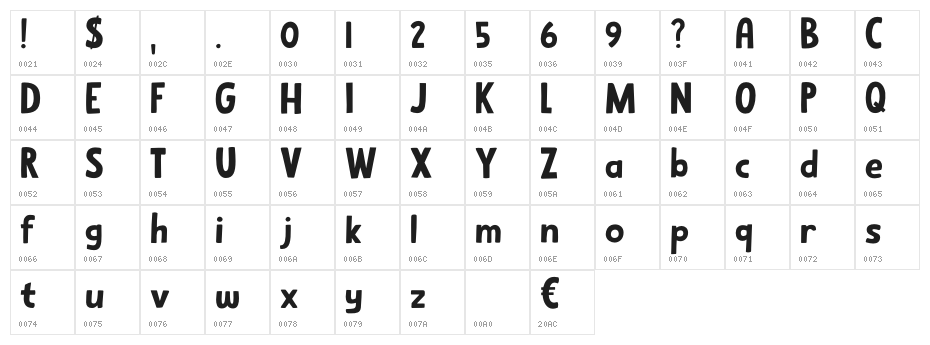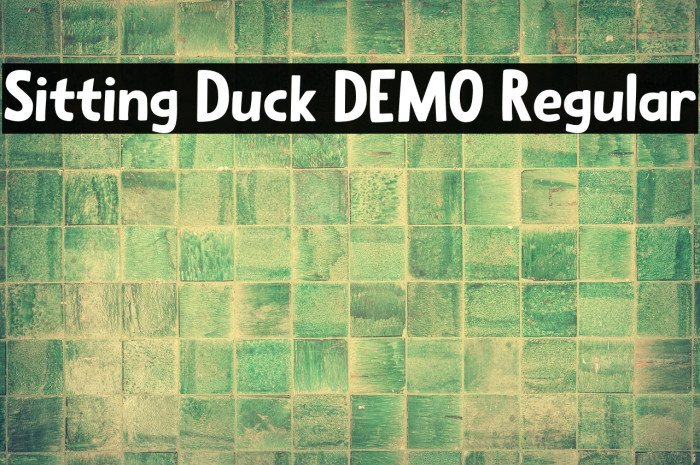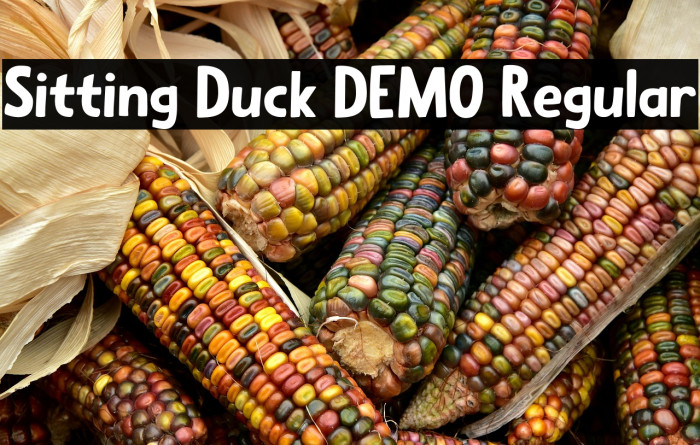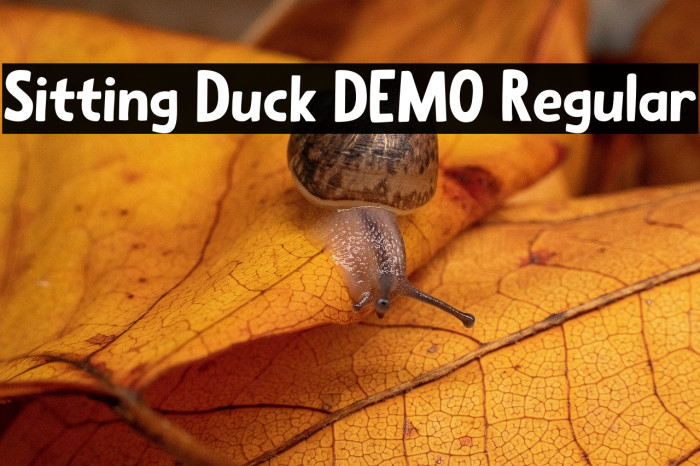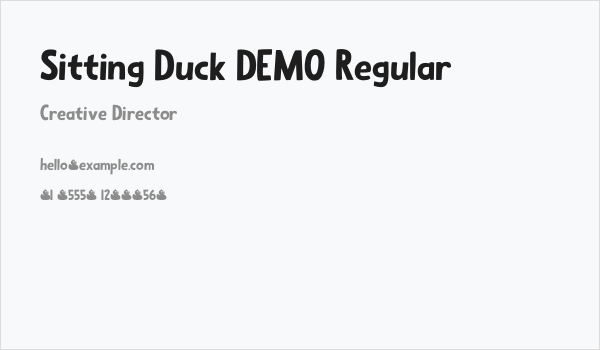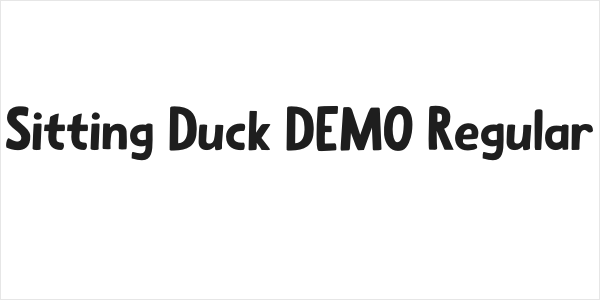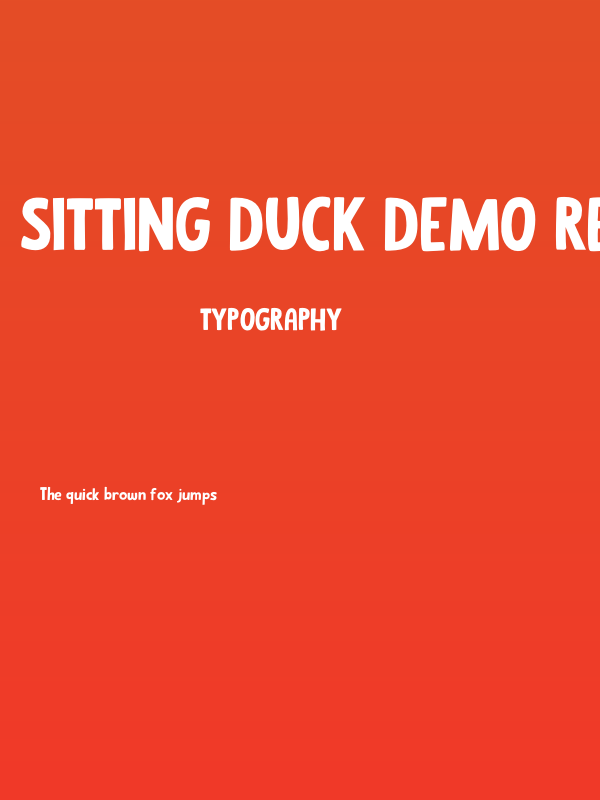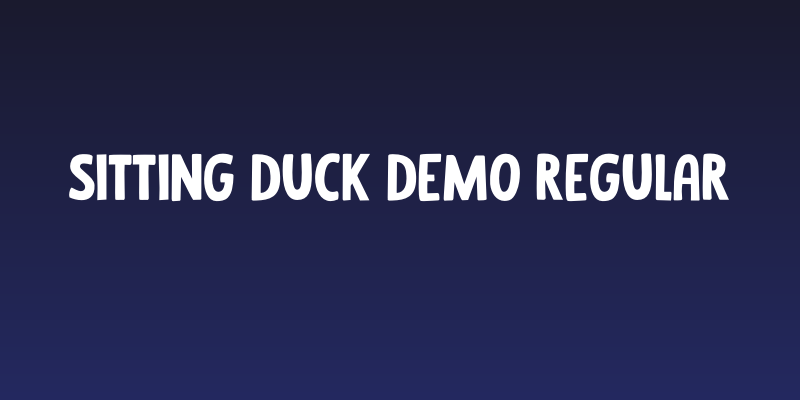
Sitting Duck DEMO Regular Font
Sitting Duck DEMO Regular Description
This playful and whimsical font features bold, rounded characters that exude a sense of fun and creativity. The letters are slightly irregular, adding to the casual and informal feel. The font includes unique glyphs such as a duck symbol, which enhances its quirky and distinctive style. The overall appearance is friendly and approachable, making it ideal for projects that require a lighthearted and engaging touch. The characters are well-spaced, ensuring readability while maintaining a lively aesthetic.